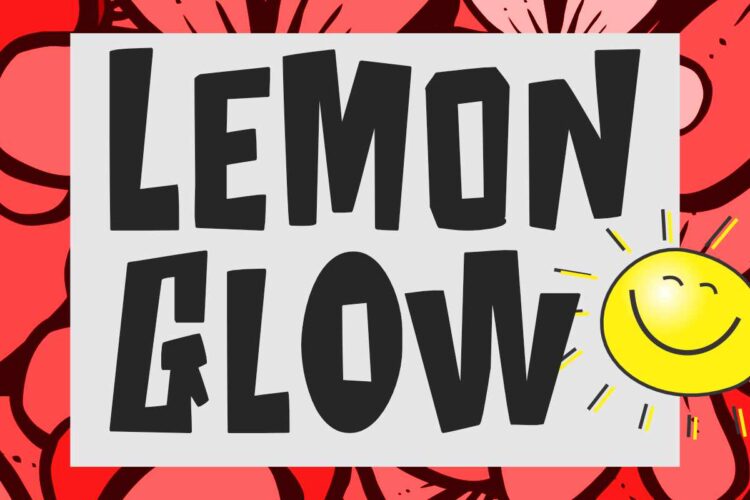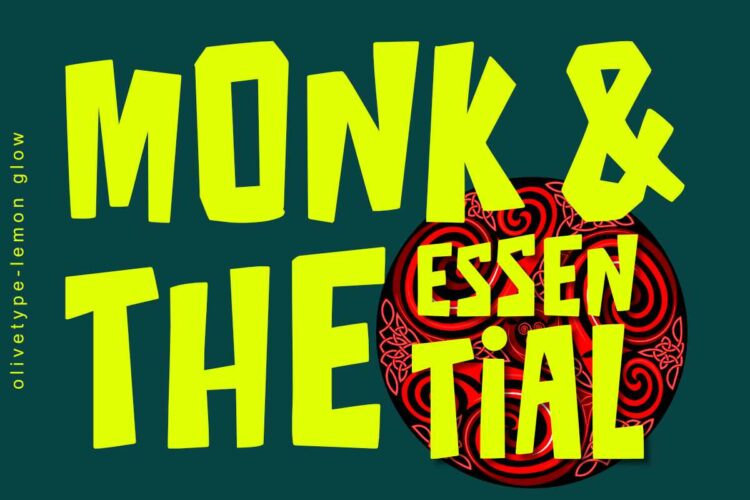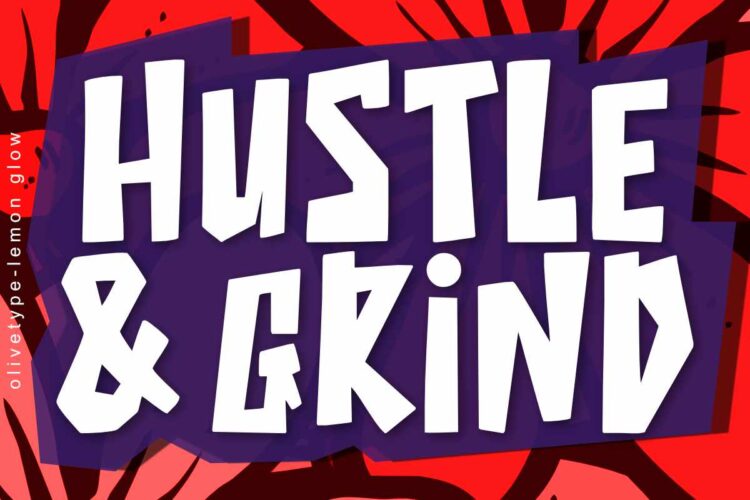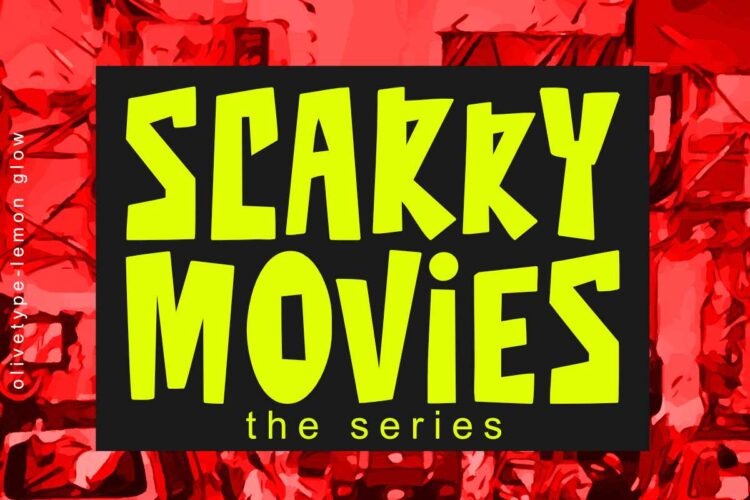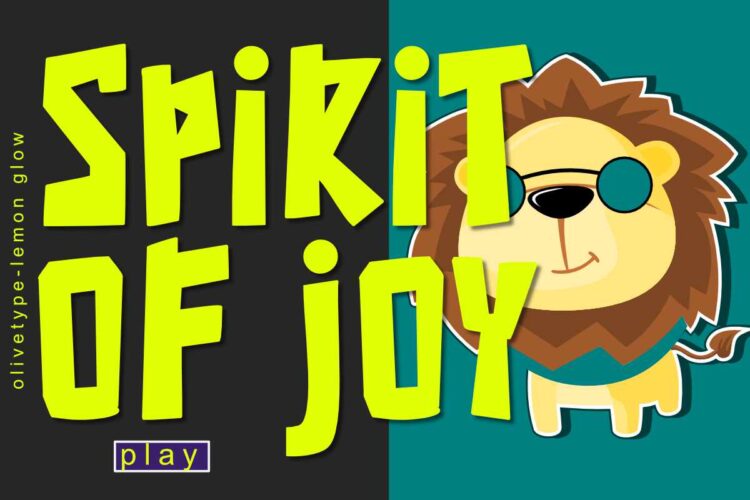
With Lemon Glow, you’ll bring joy back to your design projects with a font suitable for anything from creative pieces and children’s products to gaming brands and fresh business logos. It’s versatile, full of joy, and easy to use!